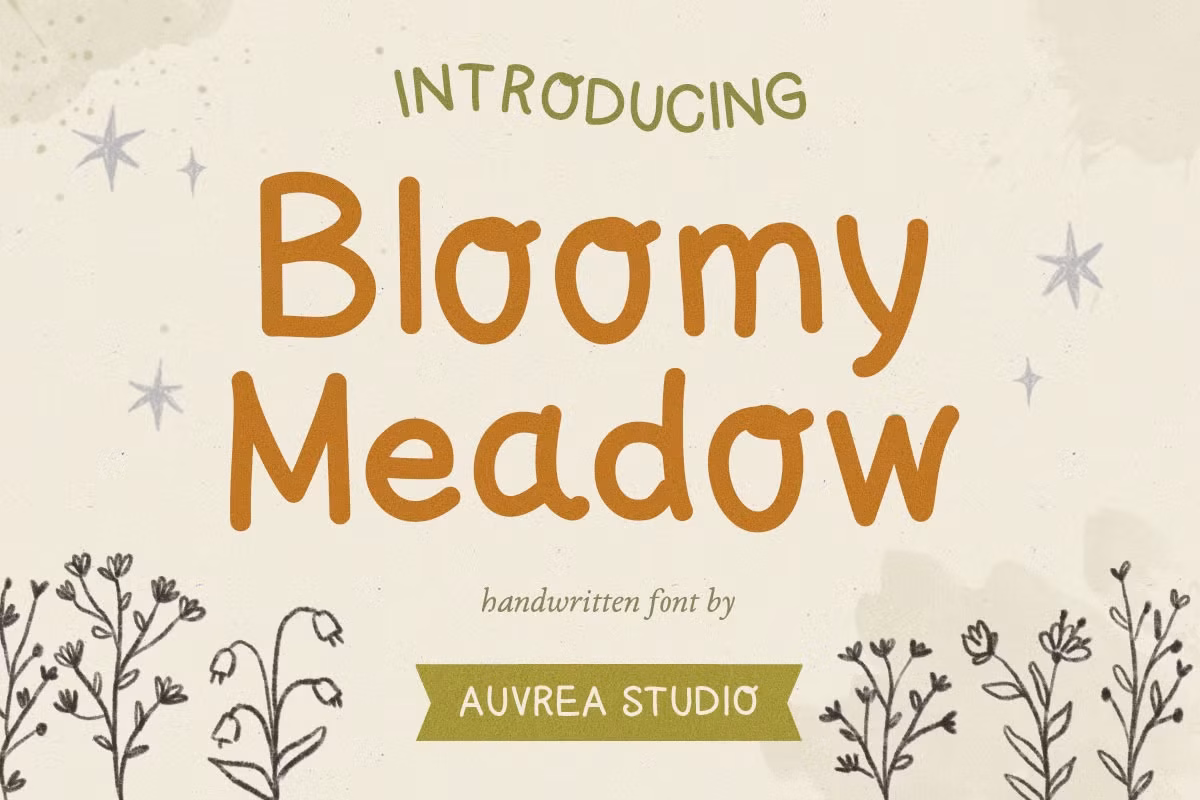
Bloomy Meadow - Handwritten font Free Download
Bloomy Meadow – Handwritten Font Free Download is a soft, whimsical typeface that captures the beauty of nature and the charm of personal handwriting. With its flowing curves, organic lines, and friendly personality, Bloomy Meadow is perfect for greeting cards, wedding invitations, branding, packaging, and social media content.
This font is designed to add warmth and authenticity to any project. Whether you're creating a floral logo, a cozy blog header, or a heartfelt quote, Bloomy Meadow brings a handcrafted, down-to-earth touch to your designs.